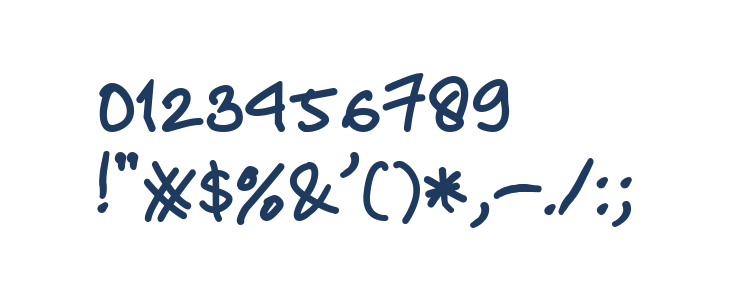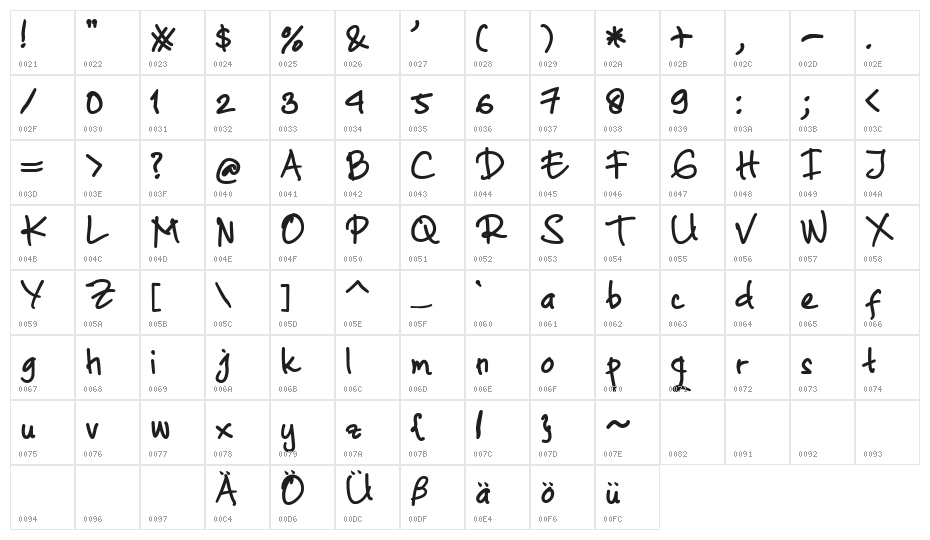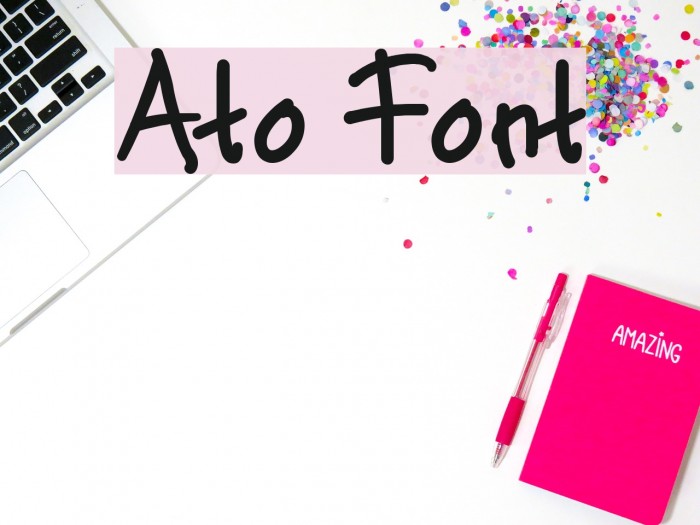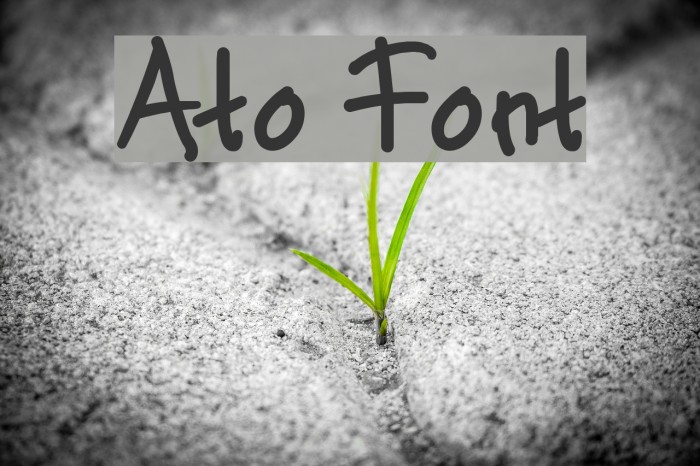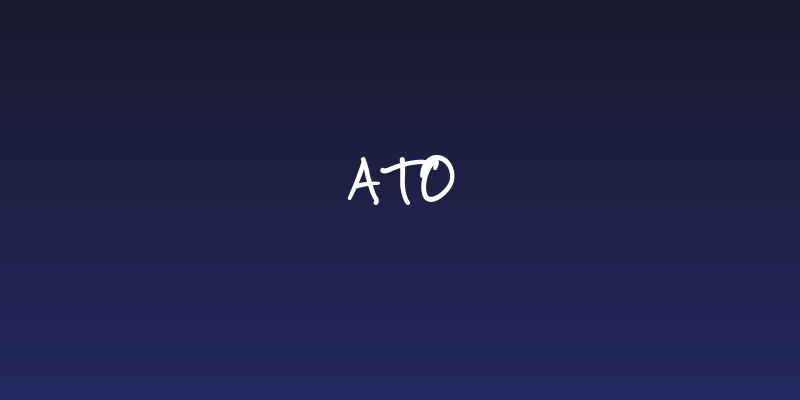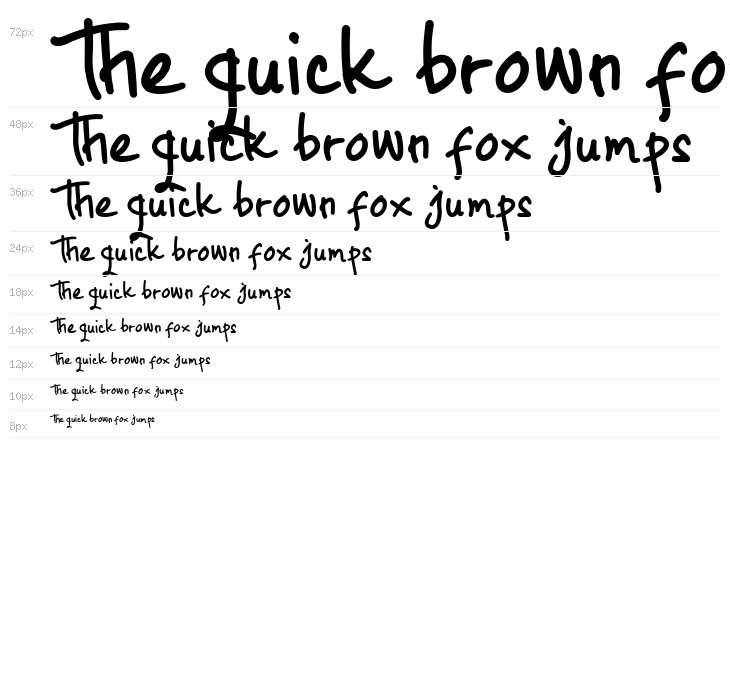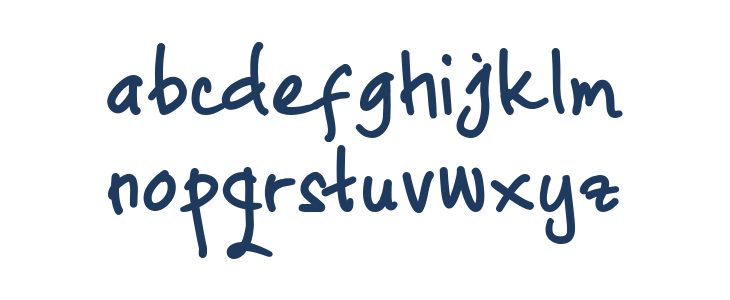
Ato Font
Ato Description
This font features a playful and casual handwritten style, characterized by its smooth, flowing lines and slightly irregular shapes. The uppercase letters are bold and expressive, while the lowercase letters maintain a consistent rhythm, adding to its informal charm. The numerals are clear and easy to read, complementing the overall style. Special characters are creatively integrated, maintaining the font's lively and approachable feel. This font's design is perfect for projects that require a personal touch, conveying warmth and friendliness.
| Use Case | Logos, Headlines, Social media graphics |
| Proposed Projects | Ideal for greeting cards, invitations, personal branding, and social media graphics. |